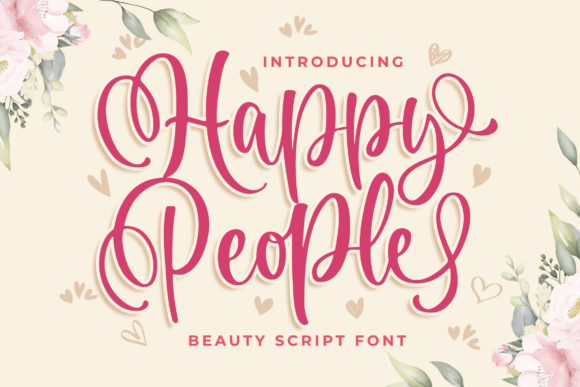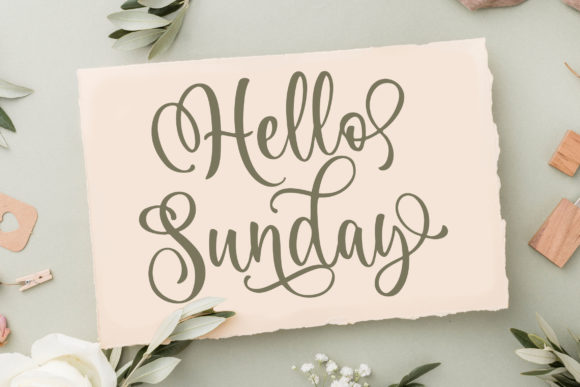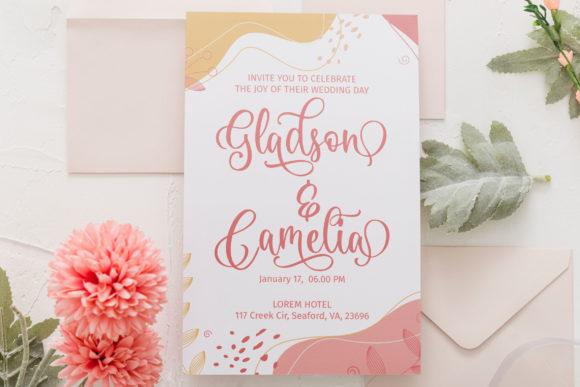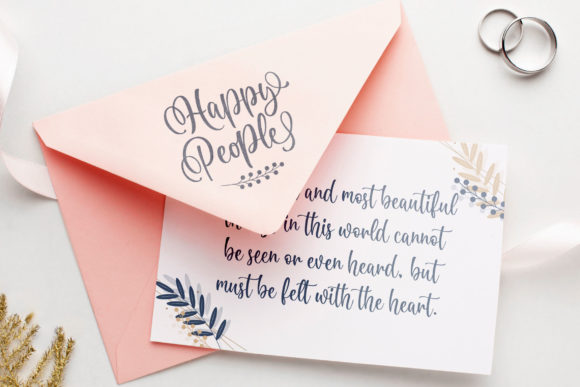
About Happy People Font
Happy People is an exquisite and flowing handwritten font that adds a touch of beauty and elegance to your designs. With its smooth and graceful letterforms, this font is perfect for a variety of projects that require a personalized and stylish touch.
The flowing and organic nature of Happy People gives it a sense of beauty and sophistication. It lends a romantic and delicate feel to wedding invitations, thank you cards, and other special occasions. The script-like appearance of the font adds a touch of elegance and creates a sense of craftsmanship.
The versatility of Happy People allows it to be used in a wide range of designs. From logos and branding materials to greeting cards and social media graphics, this font adds a personalized and stylish touch to any project. Its beauty and flowing nature make it stand out and grab attention, making it a great choice for creating eye-catching designs.
With its PUA encoding, accessing the glyphs and swashes of Happy People is a breeze. This means you can easily customize and enhance your designs by using the various stylistic options available within the font. Whether you want to add decorative flourishes or unique letterforms, the PUA encoding ensures that you have the flexibility to create stunning and personalized designs.
Happy People is a font that brings joy and happiness to your designs. Its flowing and beautiful style adds a touch of elegance and sophistication to any project, making it particularly well-suited for occasions such as weddings and celebrations. Whether you’re designing a logo, invitation, or any other personalized design, Happy People will elevate your creations and leave a lasting impression.
In conclusion, Happy People is a beautiful and flowing handwritten font that adds a touch of elegance and personalization to your designs. With its versatility and PUA encoding, you can easily access all the glyphs and swashes to customize your designs further. Whether you’re designing for weddings, greetings, or other special occasions, Happy People will bring beauty and sophistication to your projects.